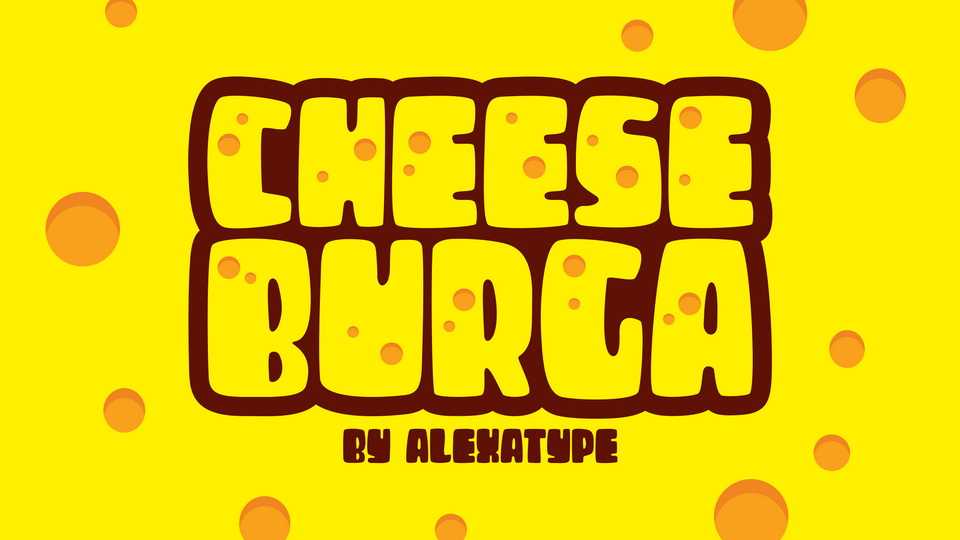
Download Cheeseburga font, an all caps typeface that suits perfectly to your children scope projects, games, poster, movie title, fast food menu, magazine, and so on.
Designer: Alexatype